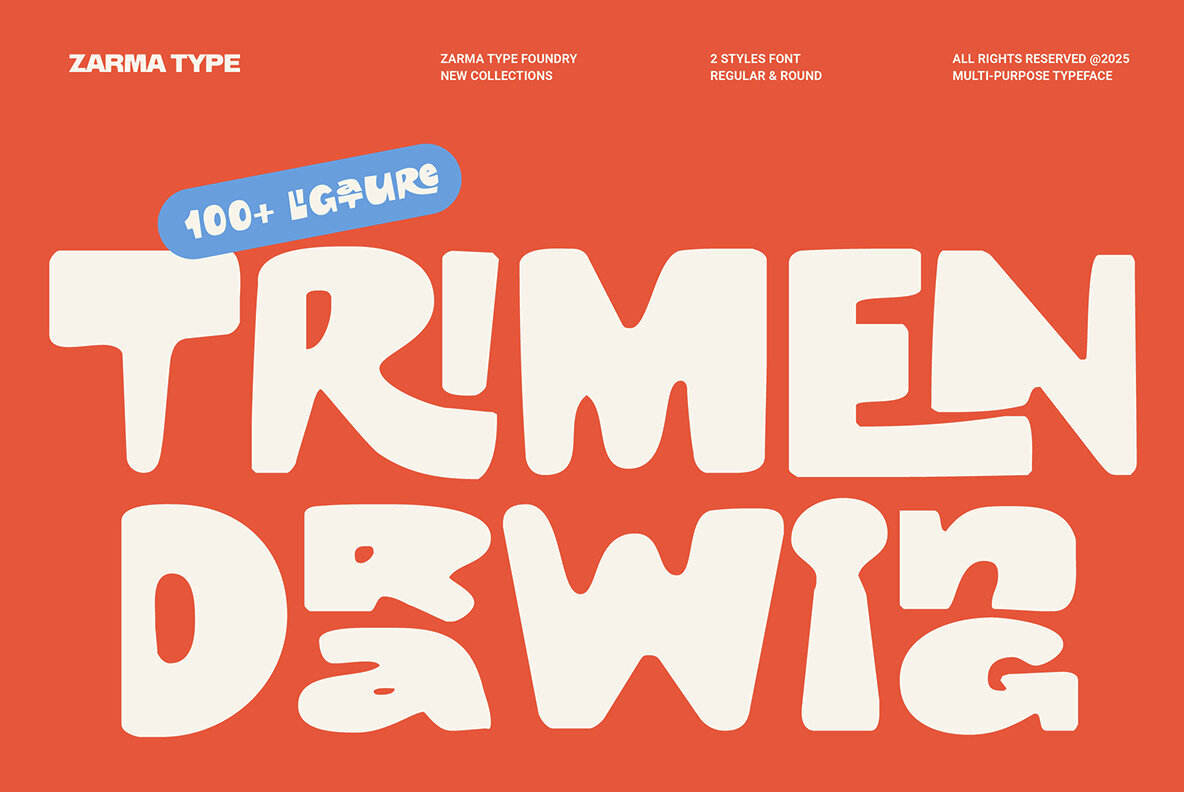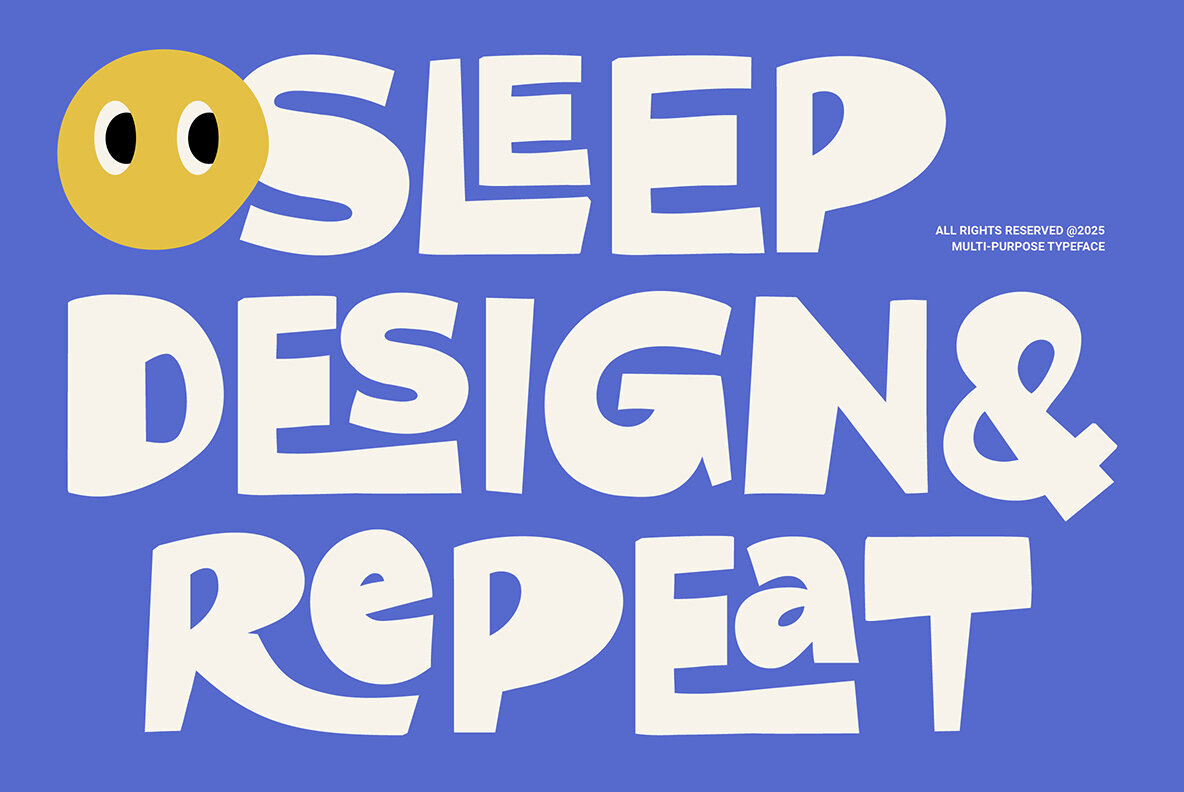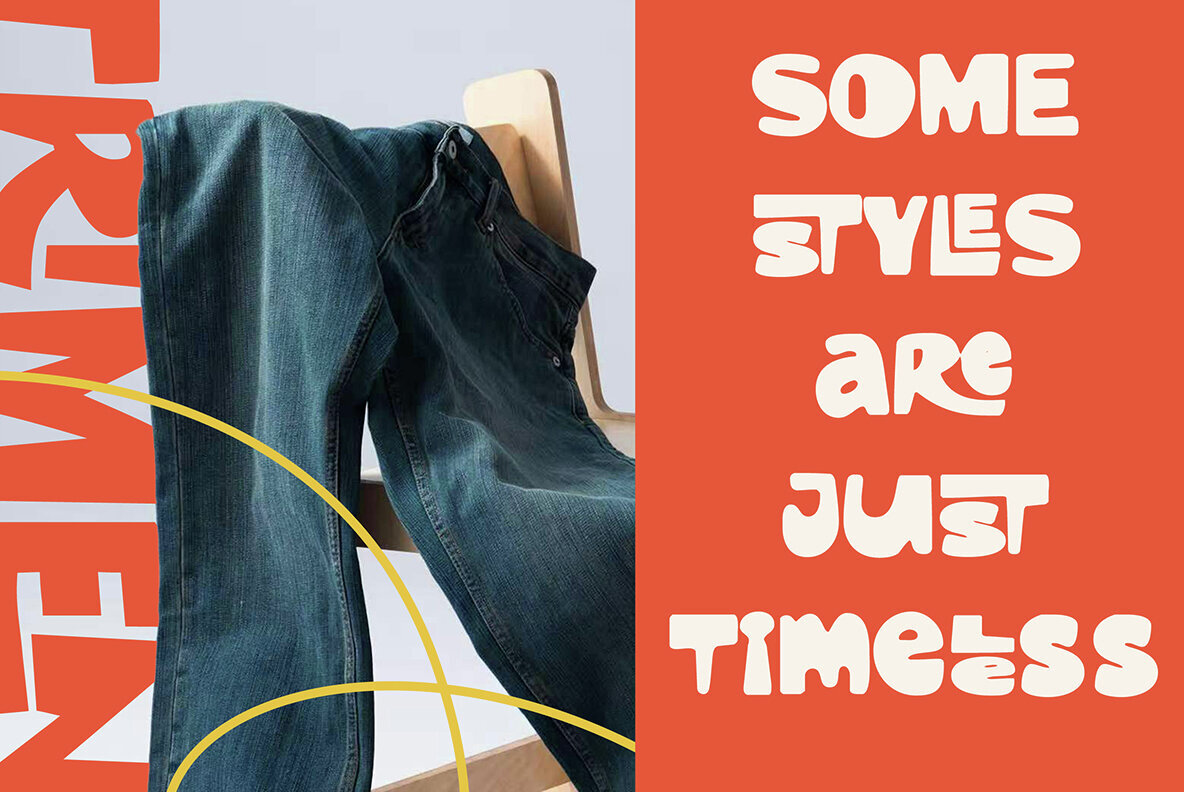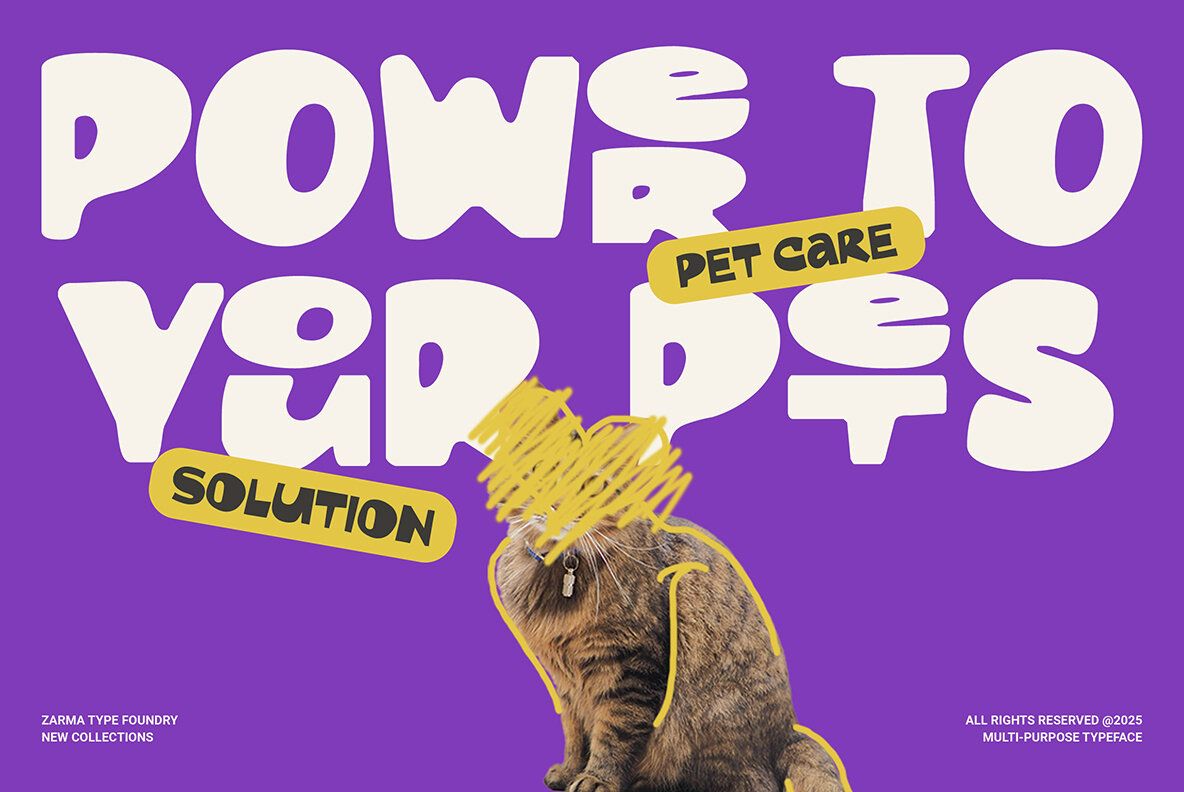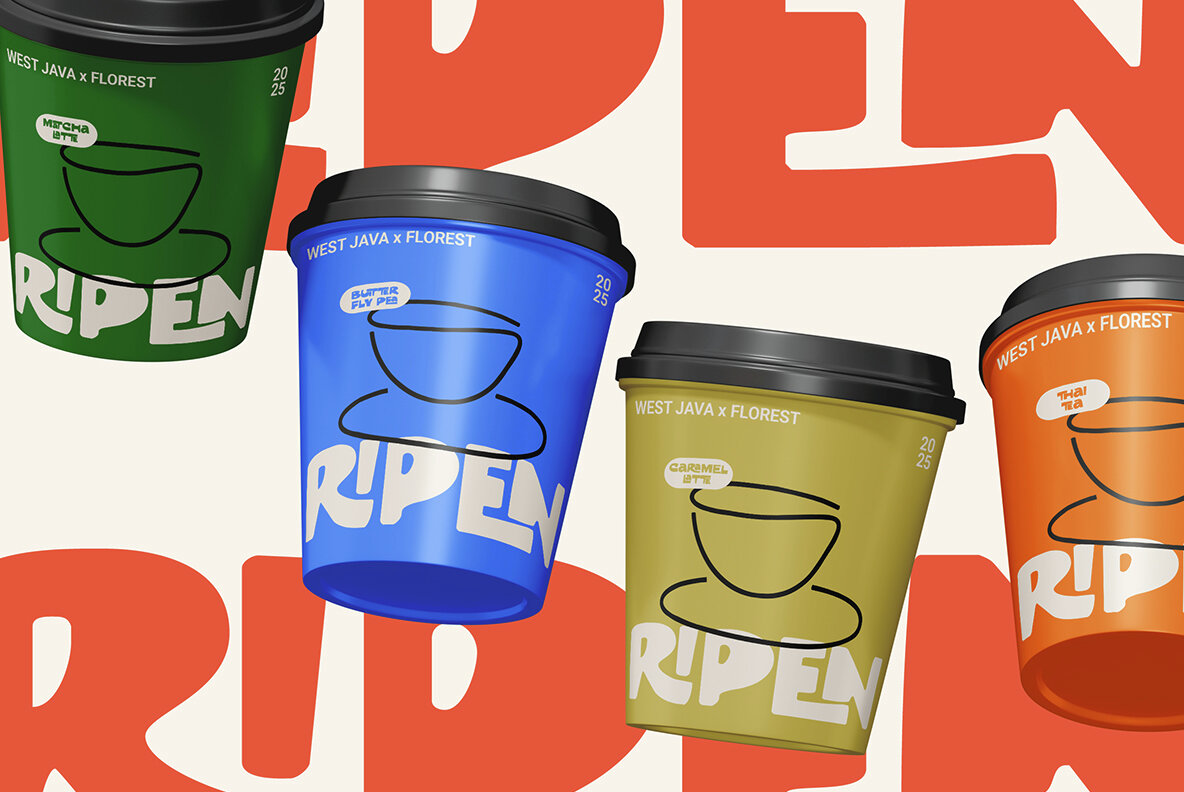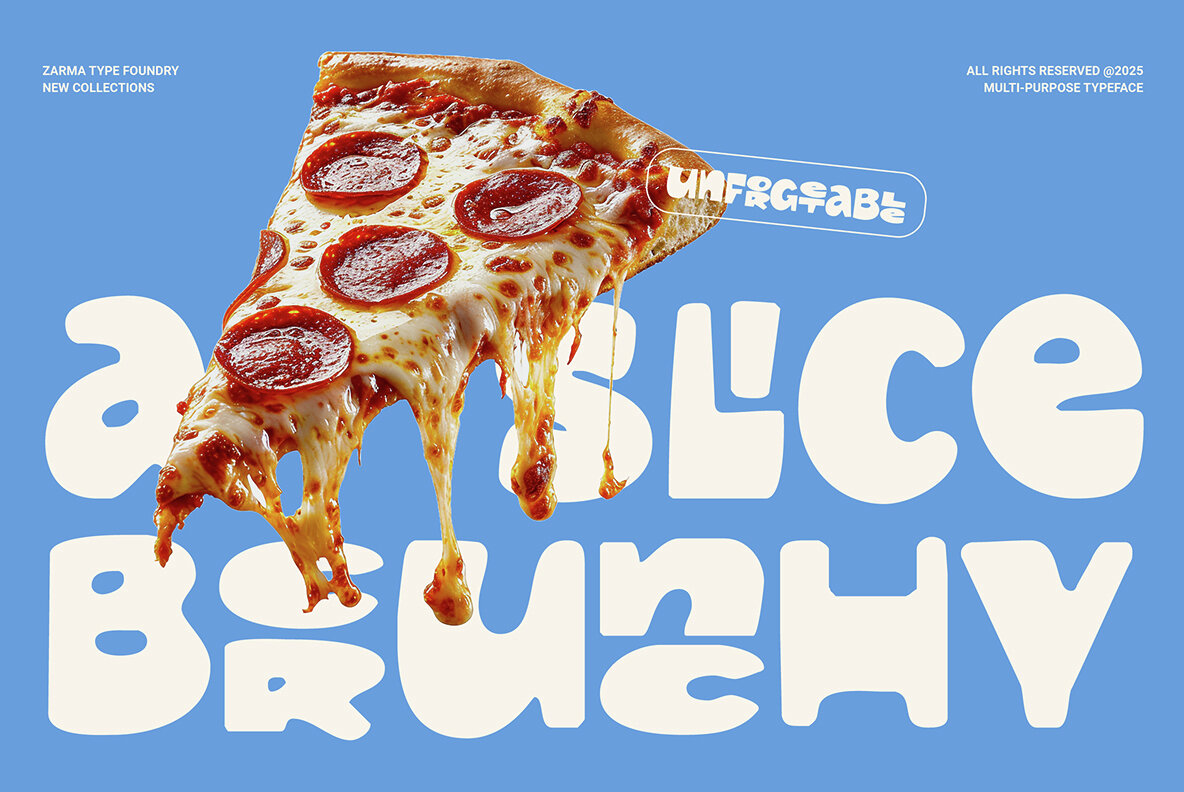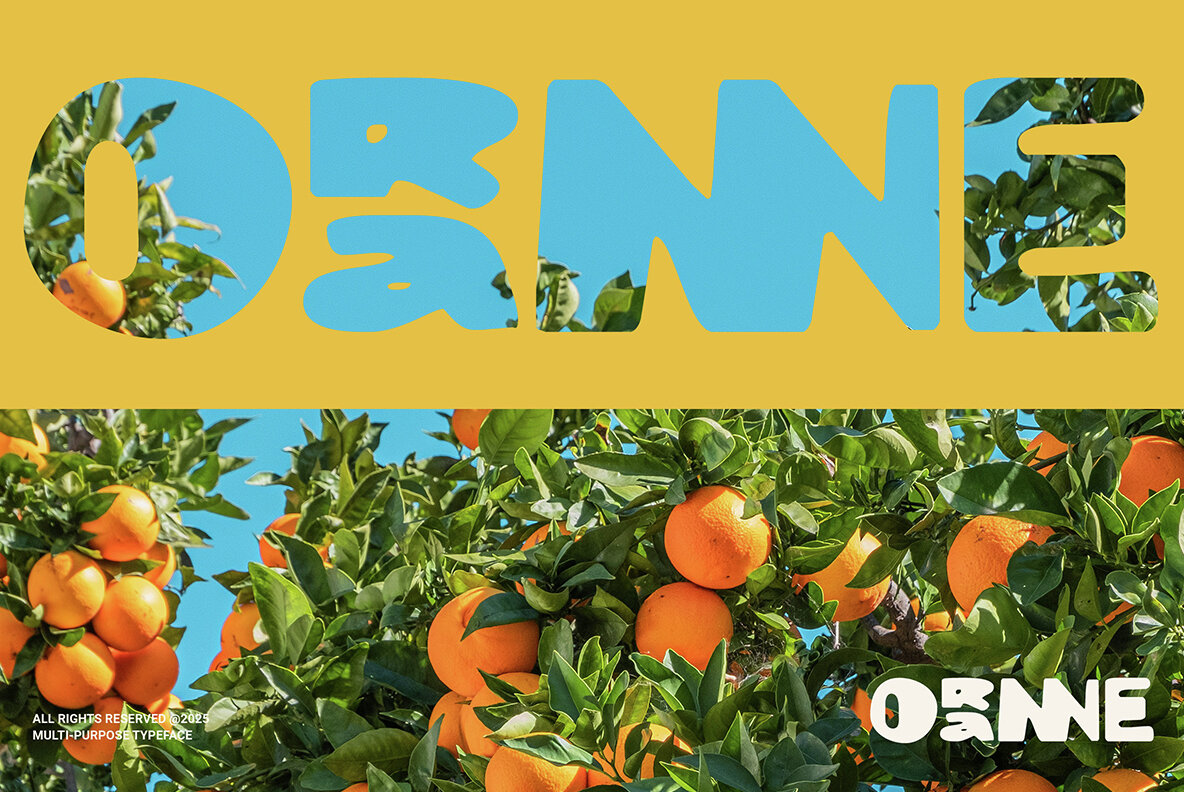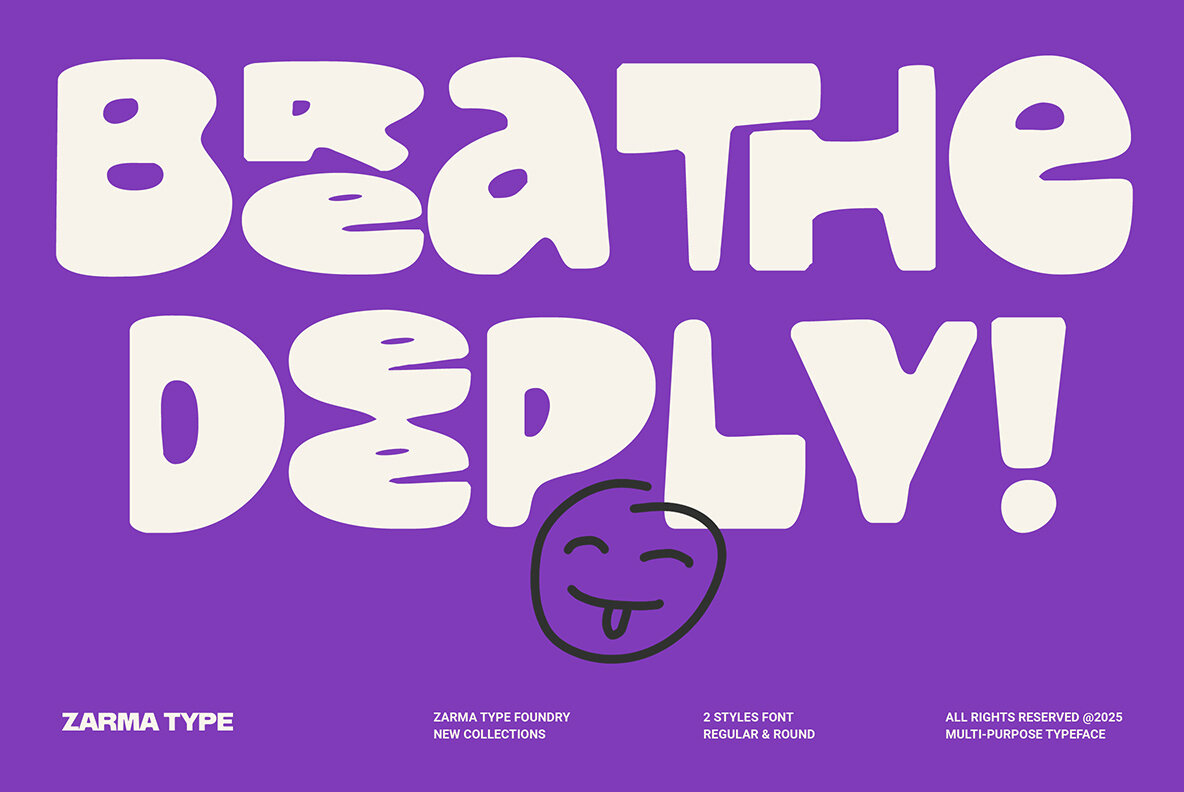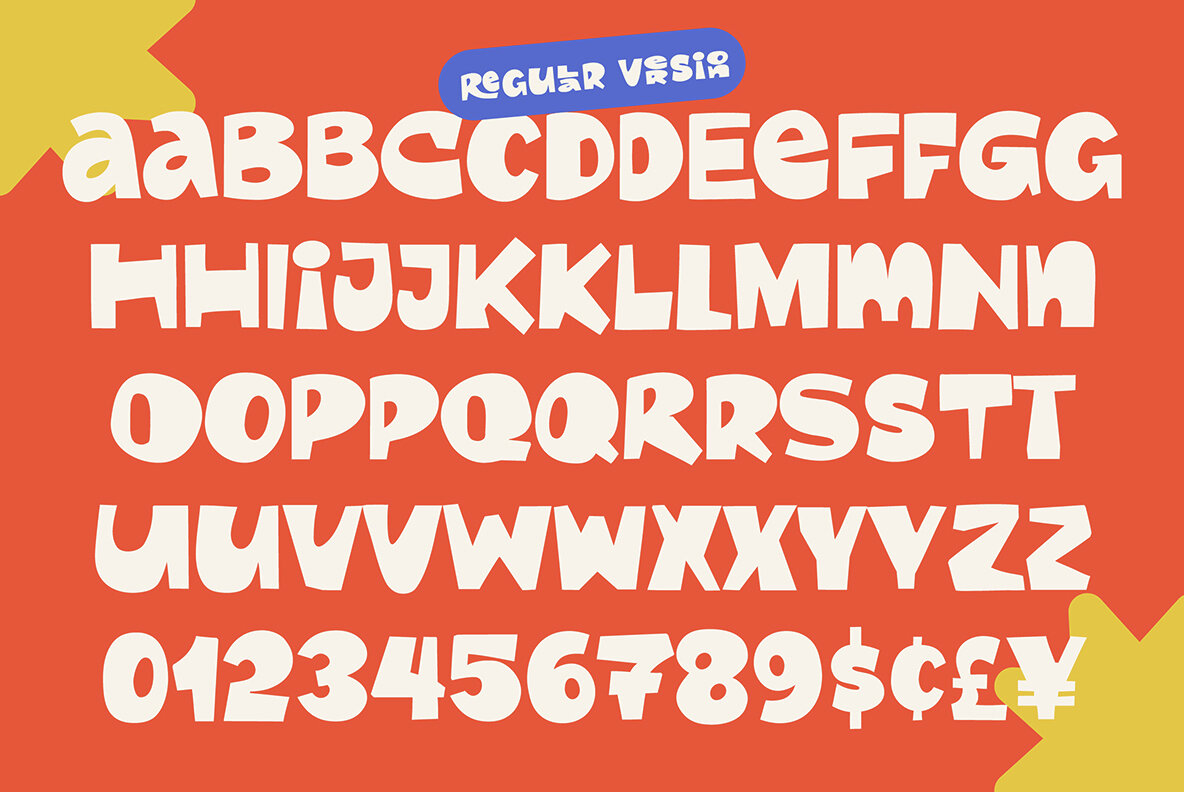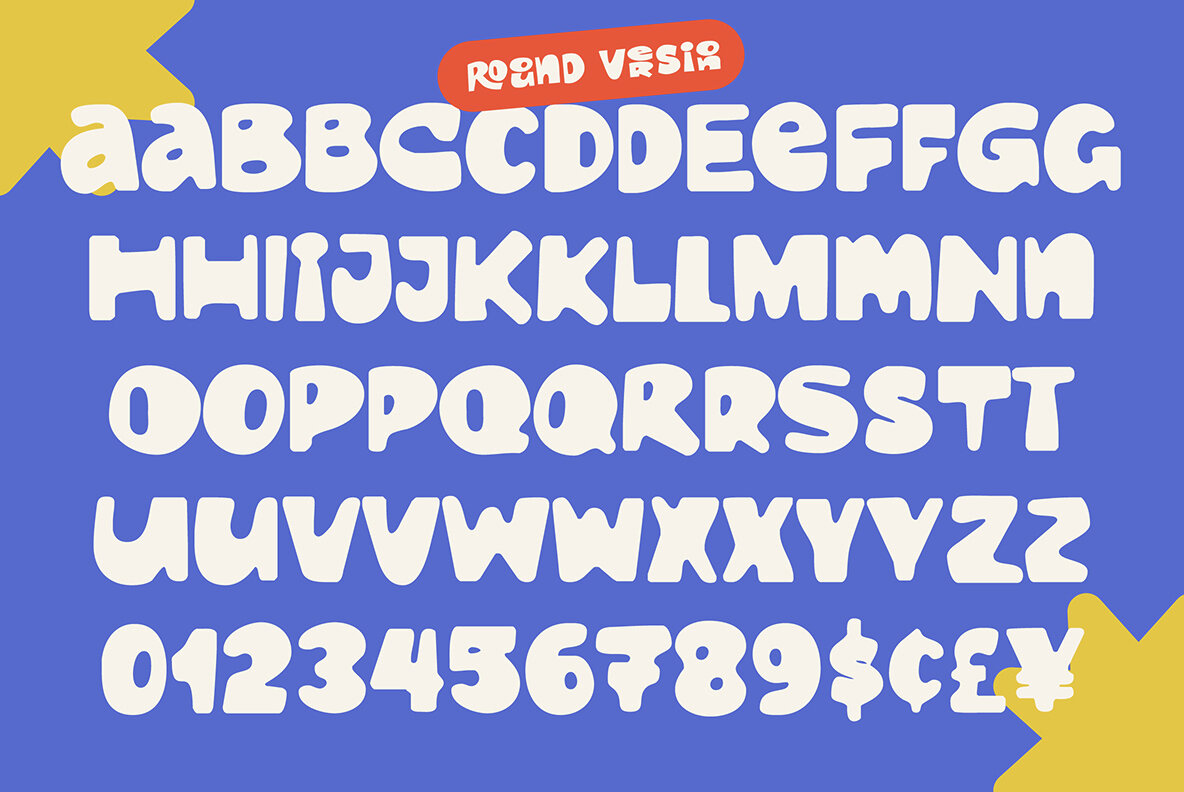
Trimen Drawing Font
Trimen Drawing Regular
Trimen Drawing Round
Trimen Drawing, a modern and bold font, infuses your design projects with personality and flair. Its thick, hand-drawn strokes and playful curves offer a unique, expressive style, ideal for those seeking an eye-catching and fun aesthetic. The font's organic imperfections add a touch of grunge, making it an excellent choice for youthful brands. Trimen Drawing brings dynamic energy to a variety of layouts, from food packaging to trendy labels. Excelling in bold and creative environments, Trimen Drawing is perfect for brands that wish to stand out. Its distorted shapes and vibrant presence provide an energetic burst across designs, whether for pizza boxes or pet care products. This versatile font includes multilingual support and alternate glyphs, allowing designers to craft layouts across diverse languages and applications. Even the smallest design choices will exude intention with Trimen Drawing's vibrant character.Trimen Drawing: A Bold Font for Expressive Design